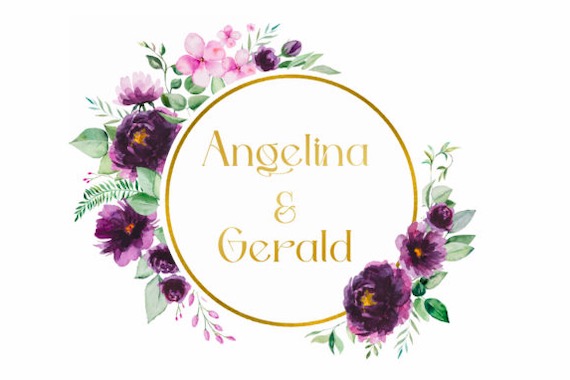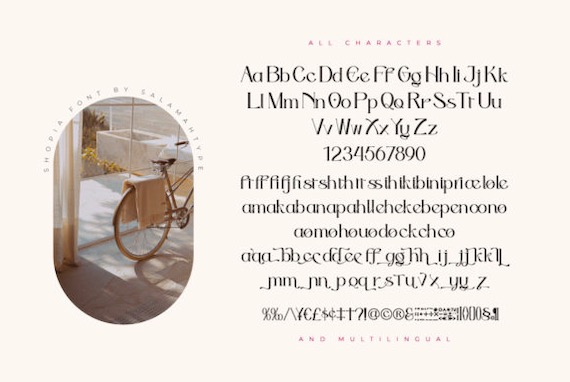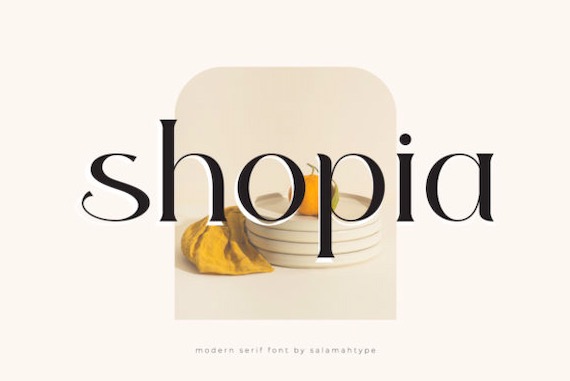
Shopia is a classy and elegant serif font that was designed and shared by Salamahtype Studio along with a luxury style. It will look perfect for any design like branding projects, logos, social media posts, advertisements, product packaging, wedding invitations, product designs, label, photography, watermark, stationery and so much more. Shopia is PUA encoded which means you can access all of the glyphs and swashes with ease.
Shopia Serif Font